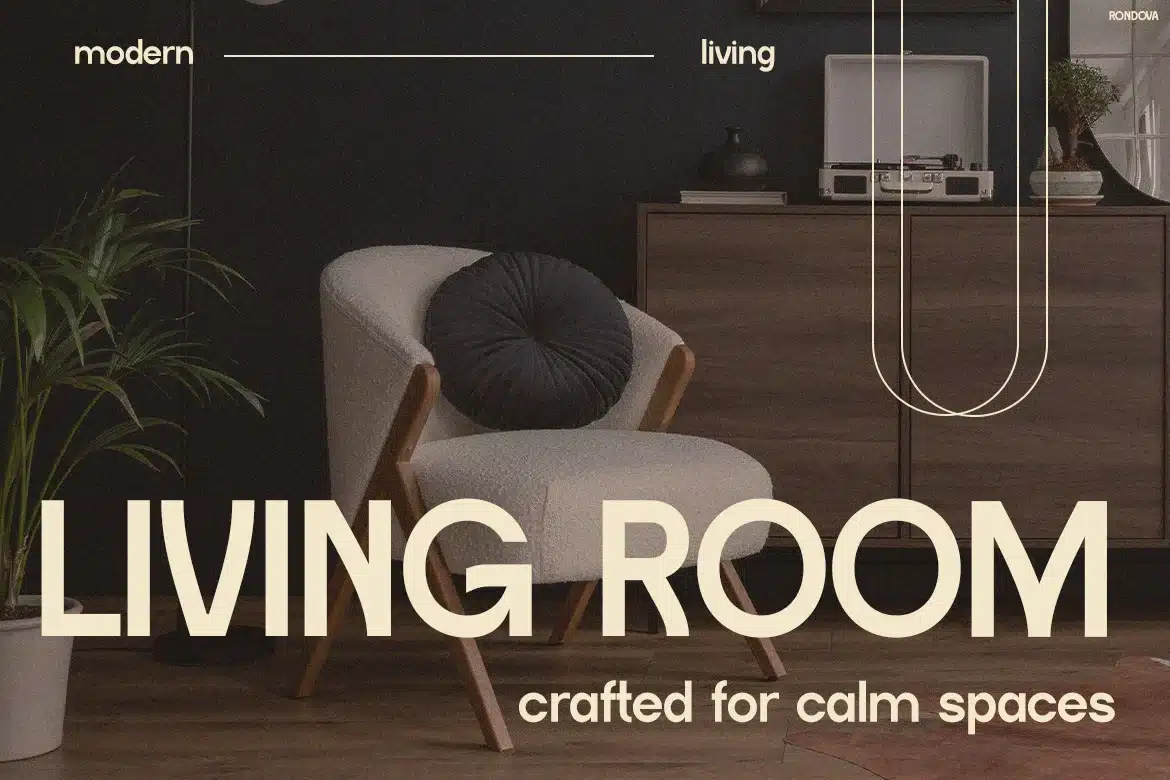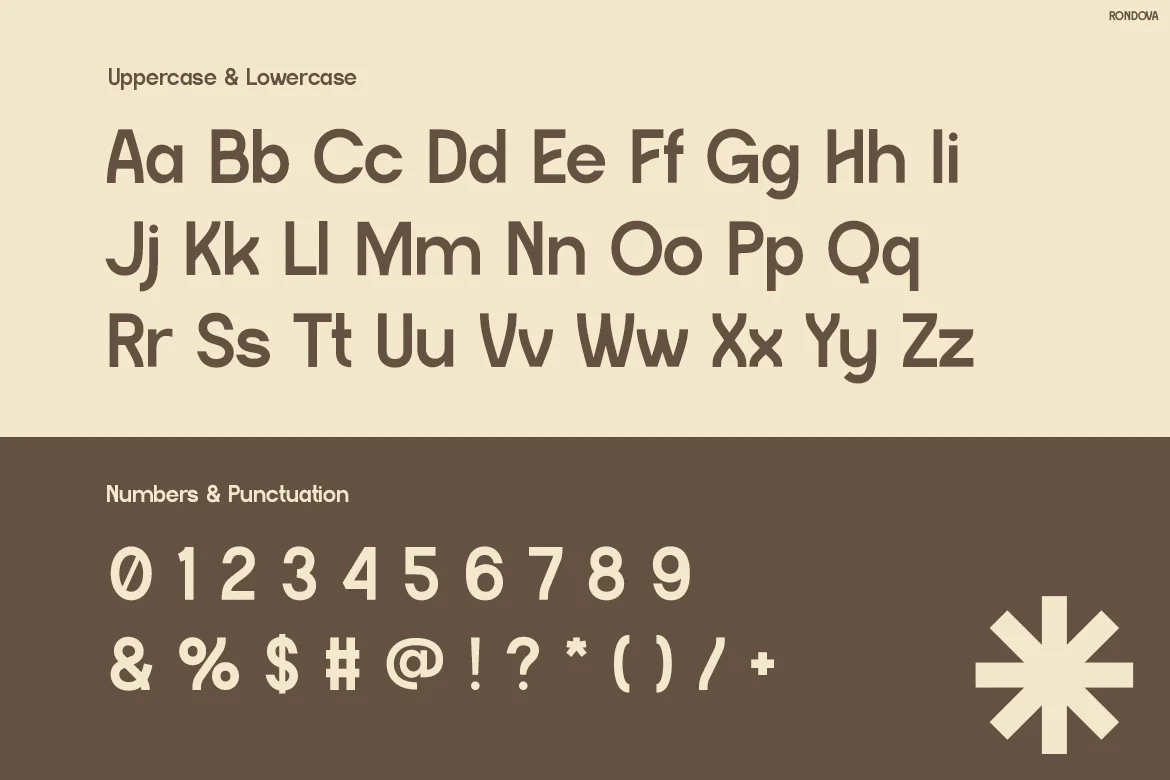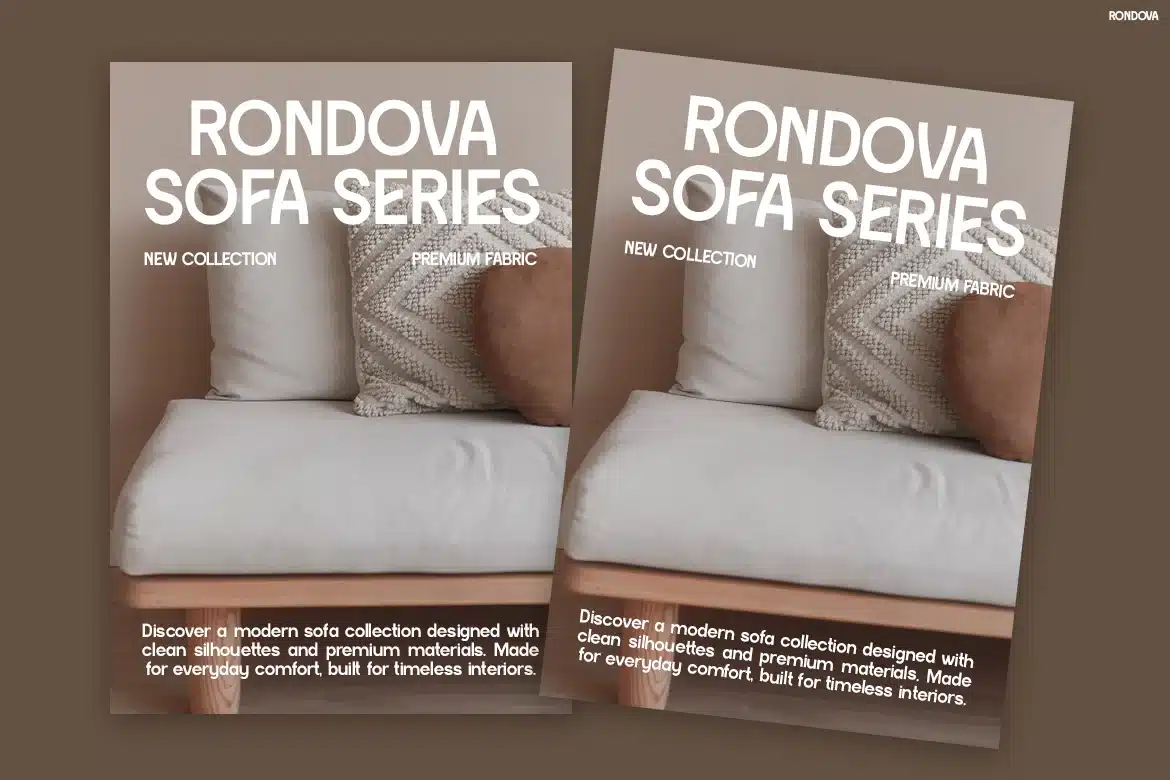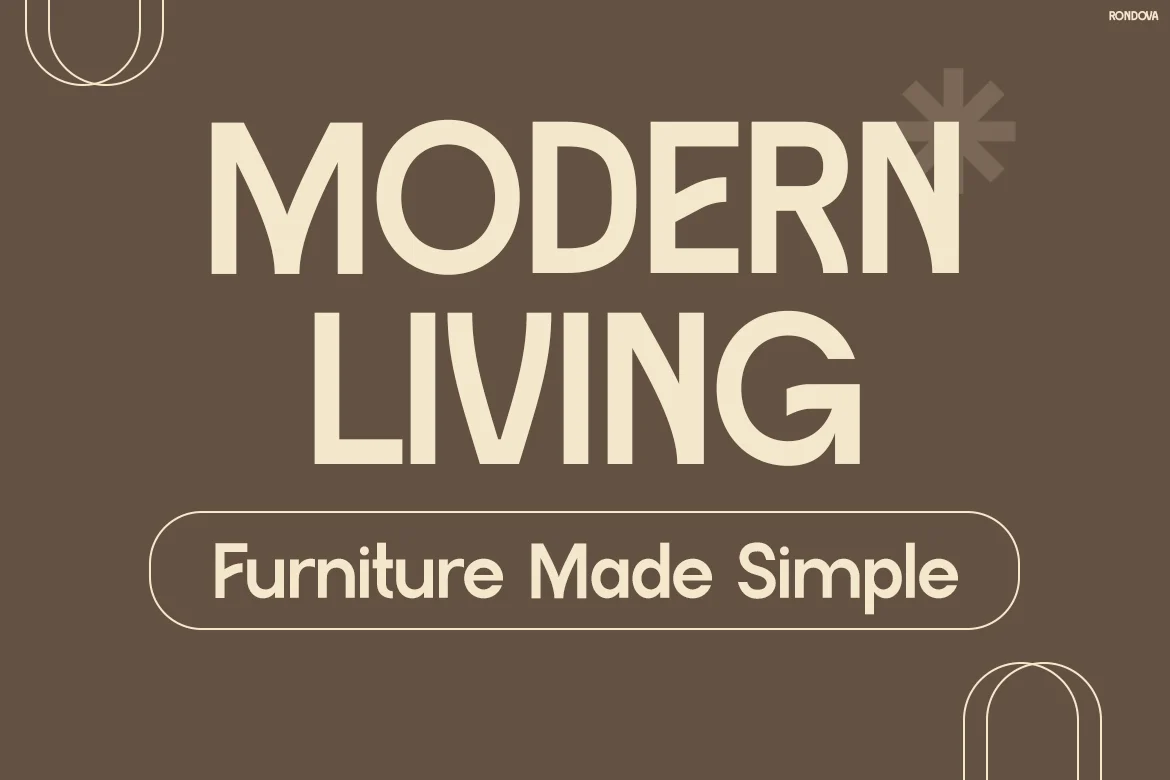
Rondova – Modern Geometric Display Font
RONDOVA – Modern Geometric Display Font
RONDOVA is a modern geometric display typeface for interior branding and lifestyle visuals, designed to deliver clarity and calm through its soft curves, low contrast strokes, and balanced proportions. Its elegant yet approachable vibe fits seamlessly into contemporary design contexts such as Instagram posts, furniture catalogs, and editorial layouts. The rounded letterforms and structured geometry create a clean visual rhythm, making it highly effective for branding, social media, packaging, and spatial design communication.
Built for designers working in interior, furniture, and lifestyle markets, RONDOVA brings a composed and stylish tone to every layout. Whether you're crafting branding systems, editorial spreads, posters, or app UI visuals, this typeface supports a cohesive and modern identity. It helps communicate a sense of calm, order, and visual harmony—ideal for brands aiming to appear refined, contemporary, and approachable.
Key Features :
Clean Geometric Structure
Carefully constructed letterforms with rounded edges and consistent proportions for visual balance. -
Calm & Modern Aesthetic
Soft curves and low contrast strokes create a relaxed yet structured appearance. -
Versatile Display Use
Optimized for headlines, branding, editorial layouts, social media graphics, and packaging. -
High Readability at Scale
Maintains clarity in both large headlines and medium-sized text applications. -
Interior & Lifestyle Ready
Perfectly aligned with furniture branding, modern living themes, and minimal design systems.
- Basic Latin A–Z and a–z
- Numbers